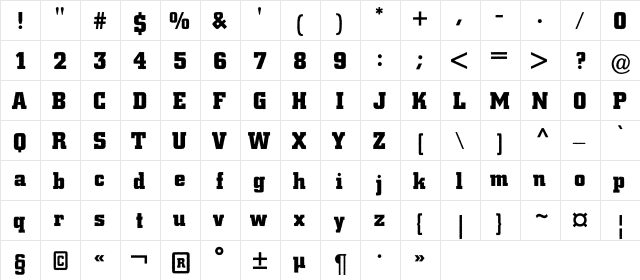
a_CityNovaRg Bold
Design Context for a_CityNovaRg Typeface
a_CityNovaRg takes a measured approach to typography — its balanced proportions and neutral character make it a reliable workhorse for both digital and print work. The heavy weight commands attention and anchors typographic hierarchies.